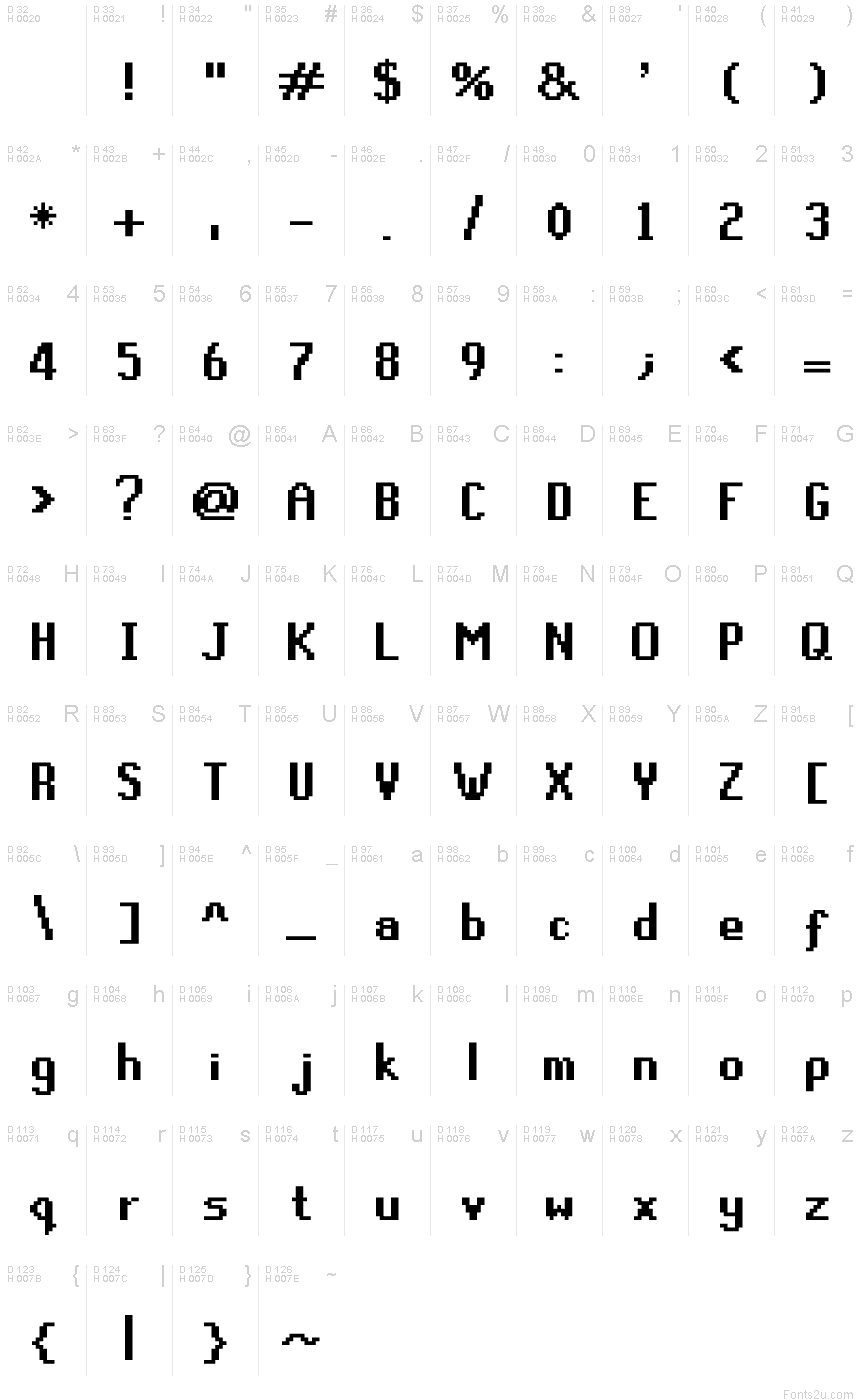
RuneScape UF Regular
It's a replica font of the MMORPG game 'RuneScape' created by me, and proven to be very popular.
“RuneScape UF” was built with FontStruct